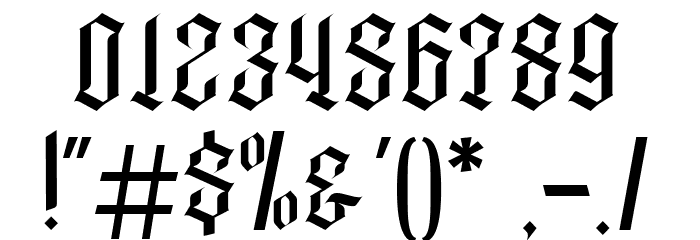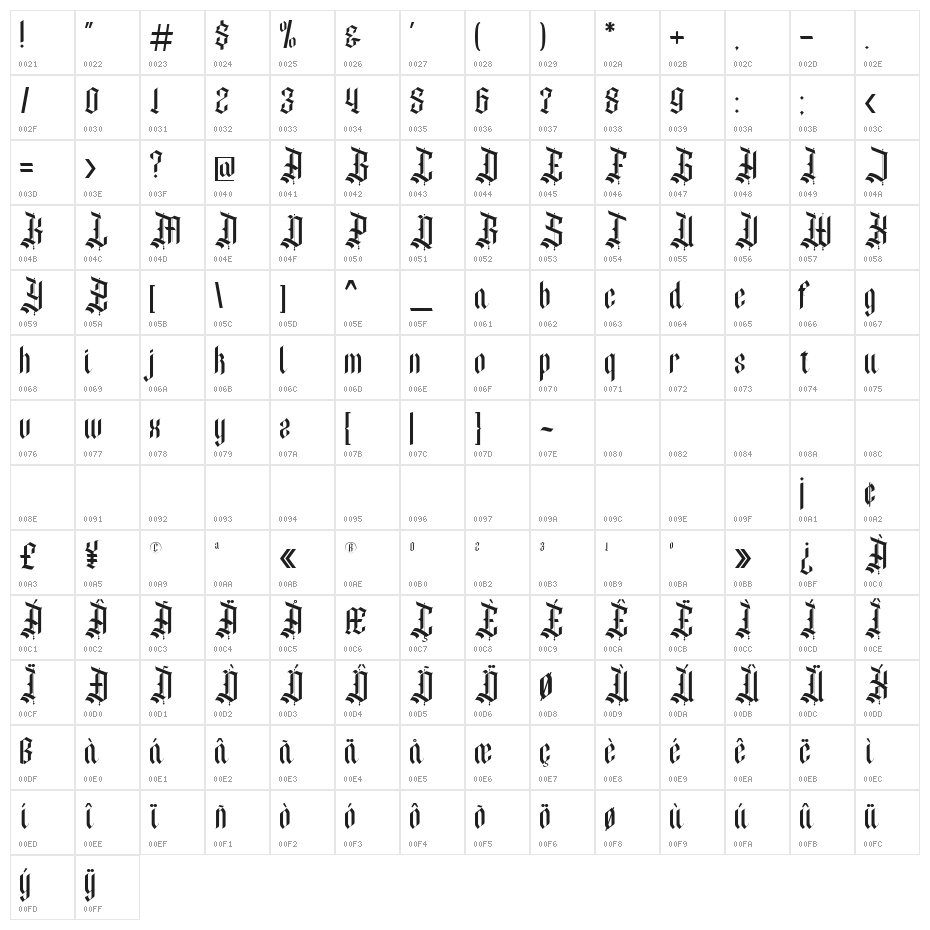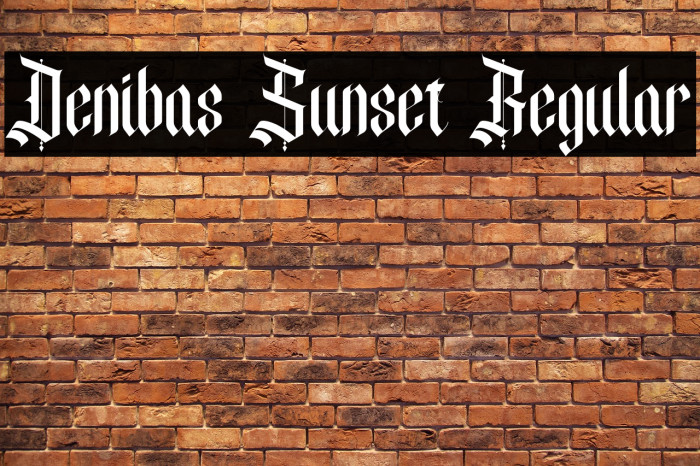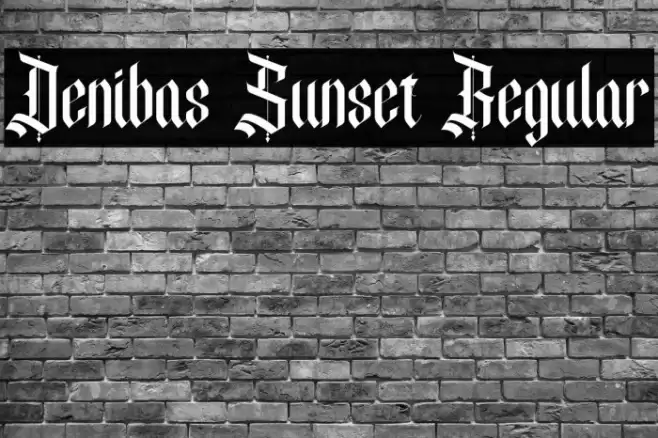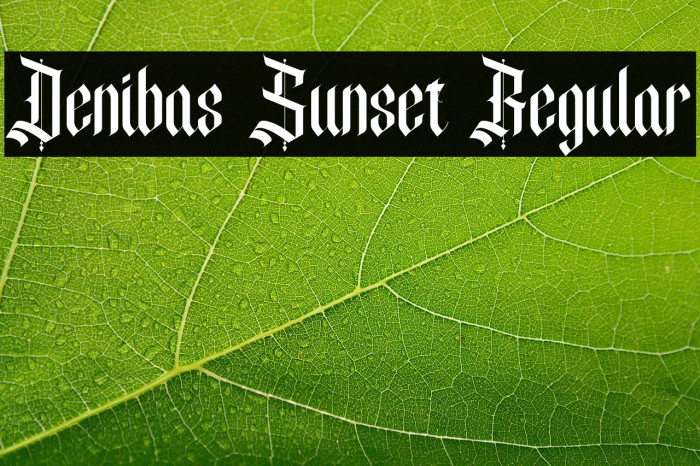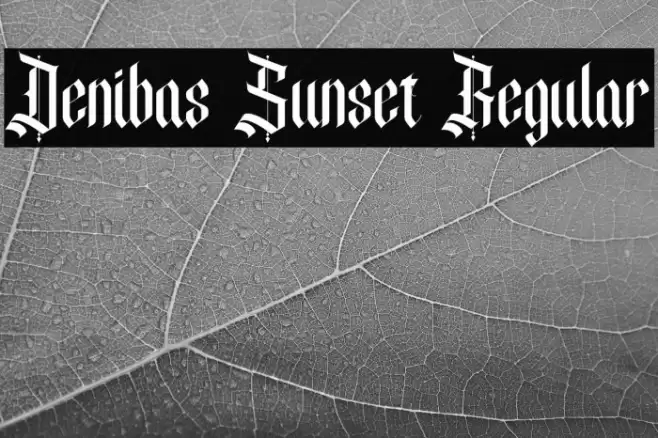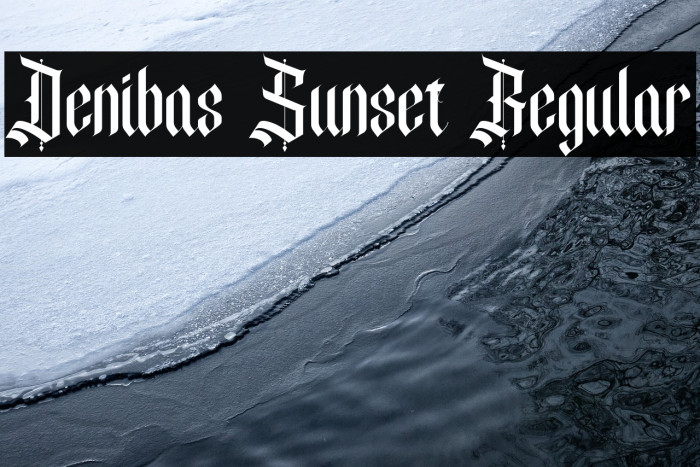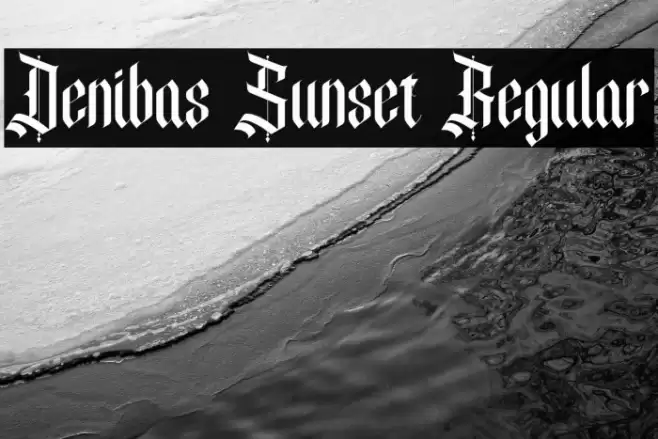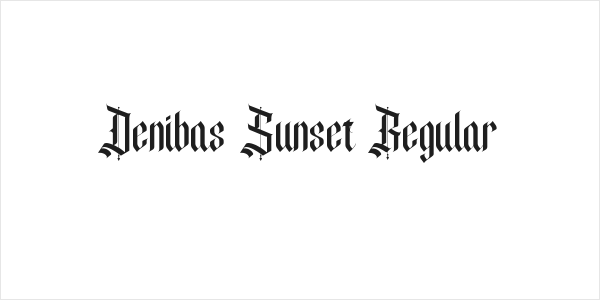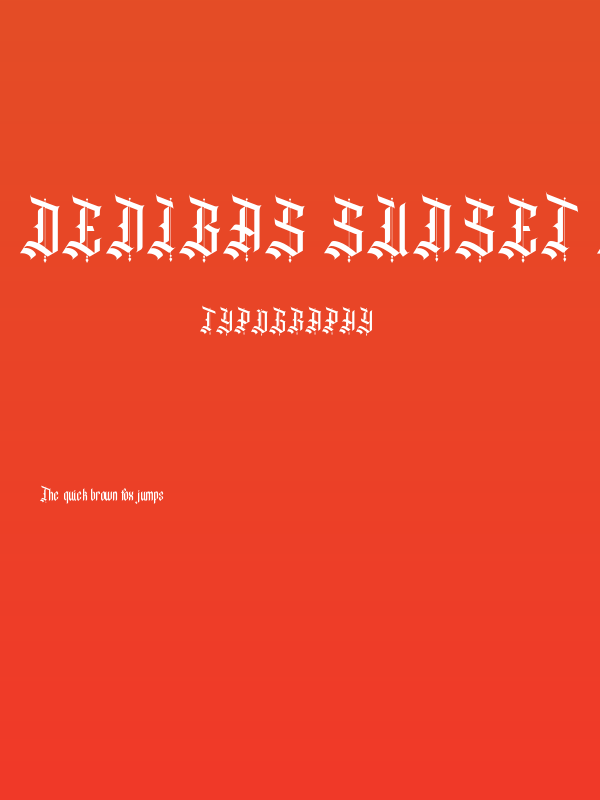
Denibas Sunset Regular Font
Denibas Sunset Regular Description
This font features a bold and dramatic style, reminiscent of traditional blackletter typefaces. The characters are sharply angular with pronounced serifs and a distinct medieval flair. The uppercase letters are particularly ornate, with intricate details that give them a gothic appearance. The lowercase letters maintain the same stylistic elements but are slightly more streamlined for readability. The numerals and special characters are consistent with the overall theme, offering a cohesive look across all glyphs. This font is ideal for projects that require a historical or formal aesthetic, such as invitations, certificates, or branding that seeks to evoke a sense of tradition and elegance.
| Overall Style | Vintage |
| Use Case | Logos, Headlines, Decorative text |
| Proposed Projects | Ideal for historical-themed designs, formal invitations, certificates, and branding that requires a traditional or gothic aesthetic. |